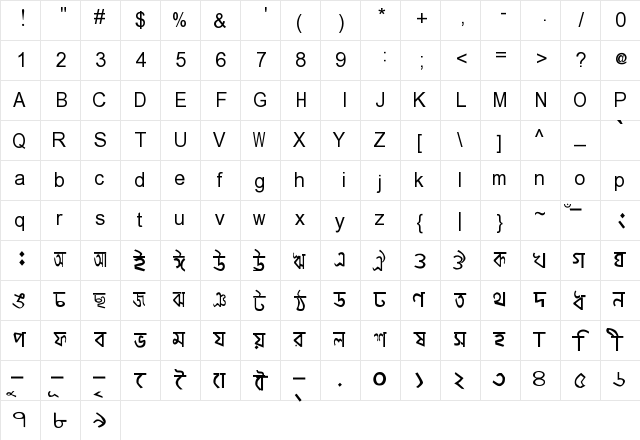
Mitra Mono Regular
| Designer | Dr Anirban Mitra |
Design Context for Mitra Mono Typeface
Mitra Mono uses fixed-width spacing throughout, giving it the structured, systematic character associated with coding environments and technical documentation.